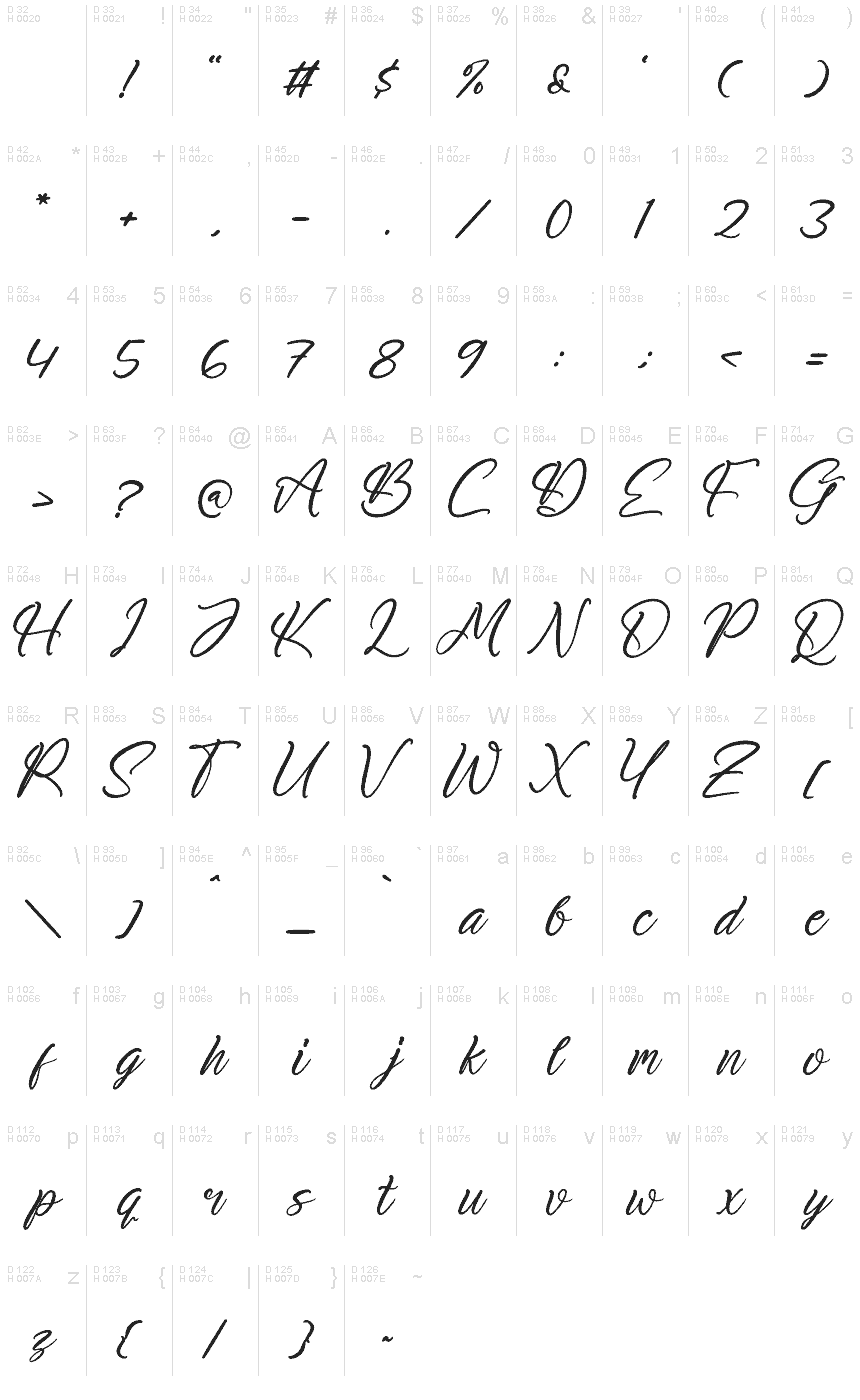
Martinez Gauttaro font by Letterena Studios is a free calligraphy font with a sophisticated and expressive cursive form. It features light classic strokes that provide an elegant style to your texts. Its expressive flowing characters are quite definitive and consistent which gives it a signature-like appearance that's perfect for those who seek premium effects within typefaces.
Use Martinez Gauttaro in signatures, digital invitations, floral arrangement branding, greeting cards, notebooks, book covers or posters. Its feminine vibe will add value to prints such as tote bags and t-shits or maybe even cosmetics branding including packaging and logos.